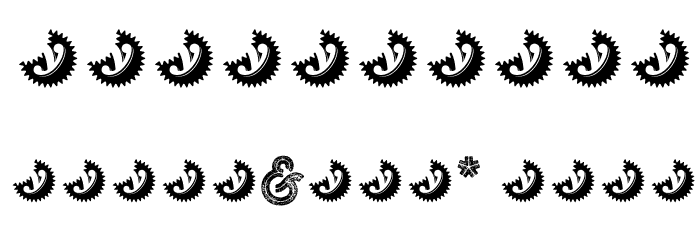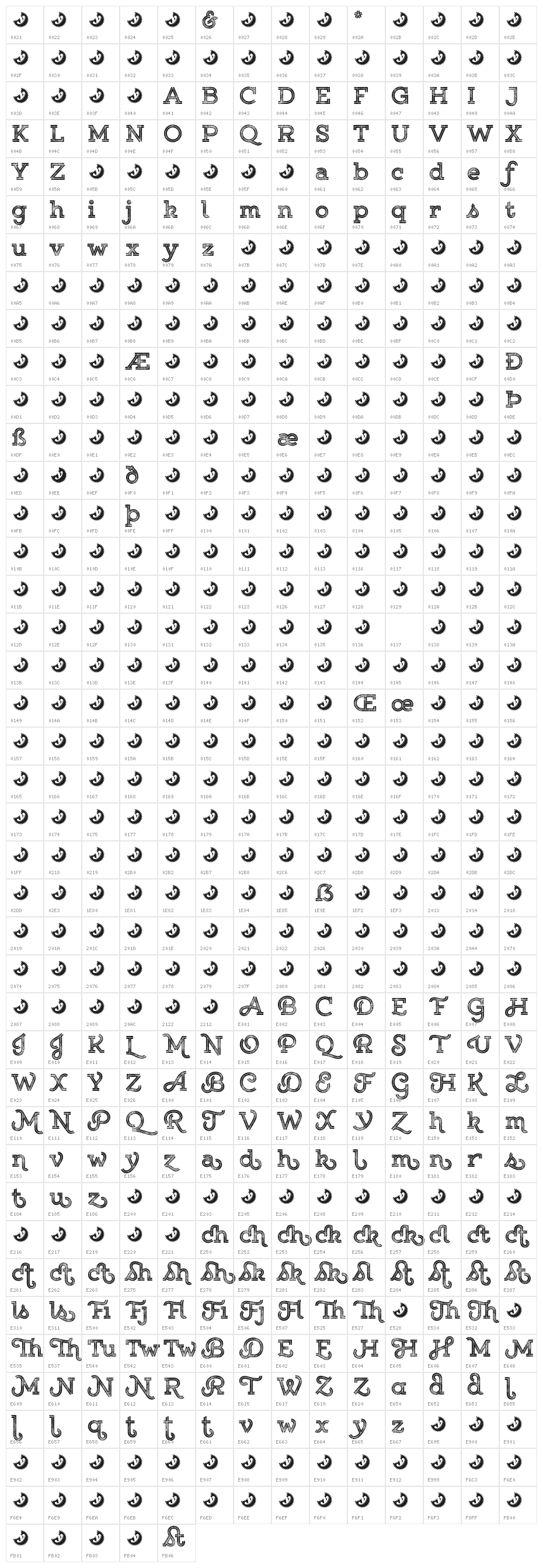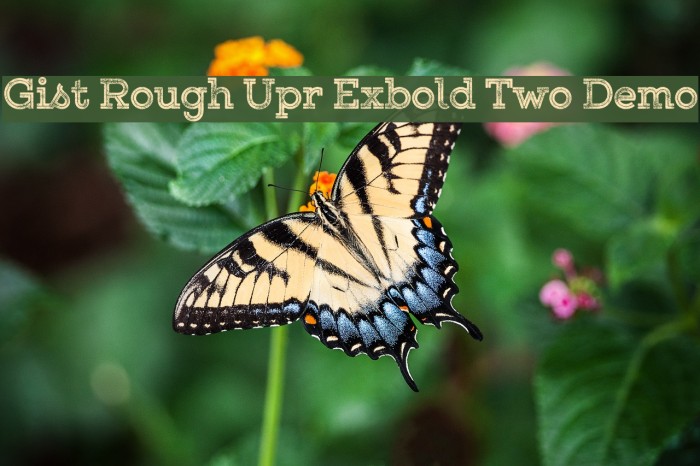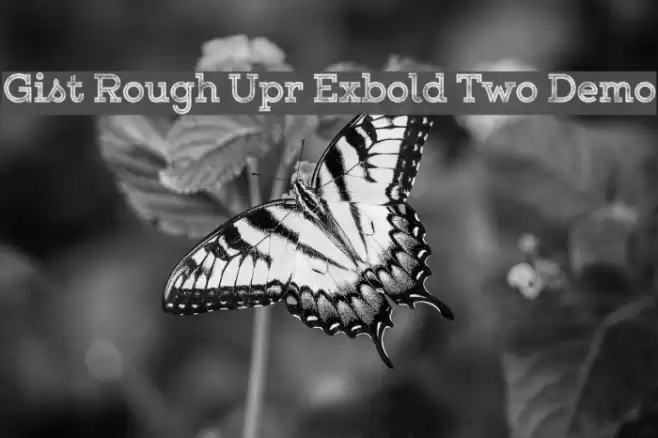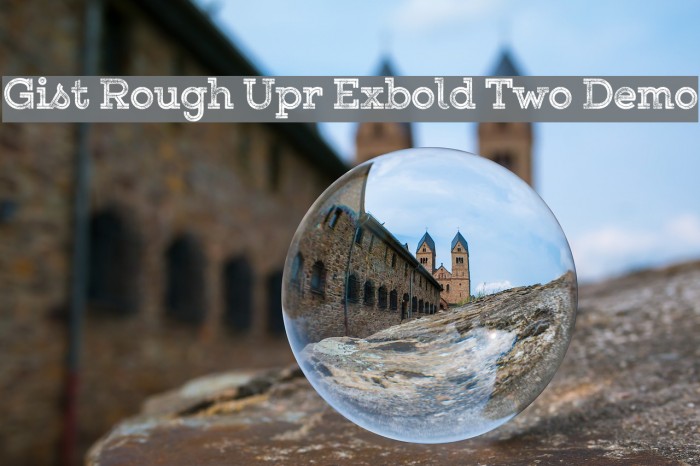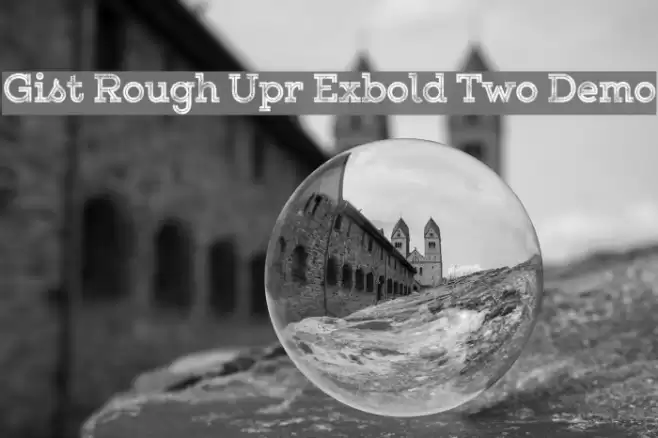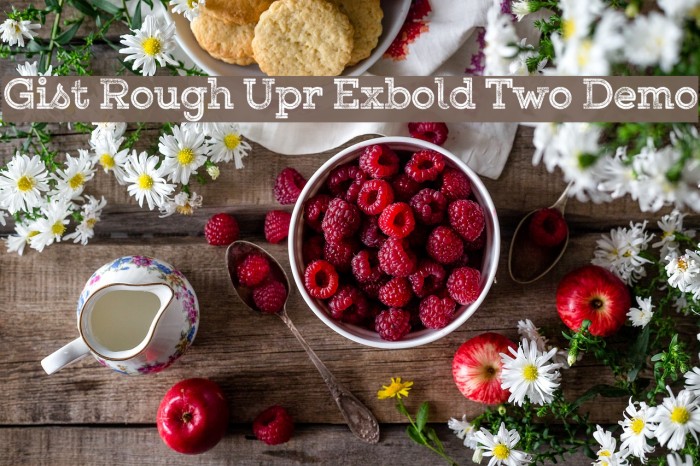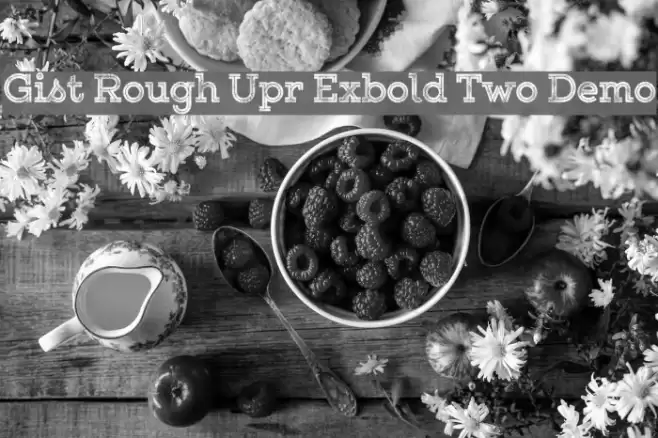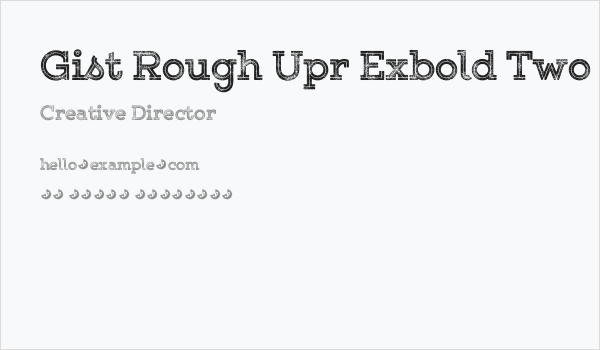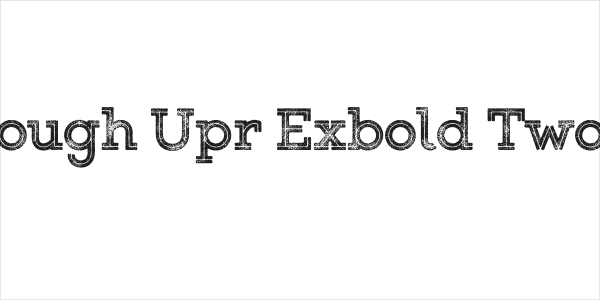
Gist Rough Upr Exbold Two Demo Font
Gist Rough Upr Exbold Two Demo Description
This font features a bold, textured style with a rough, distressed appearance. The characters have a slab serif structure, giving them a sturdy and robust look. The texture adds a vintage, worn feel, making it ideal for designs that require a rustic or industrial touch. The uppercase and lowercase letters are well-defined, with consistent thickness throughout. The special characters maintain the same textured style, ensuring uniformity across all elements. This font's unique aesthetic makes it stand out, perfect for creative projects that need a bold statement.